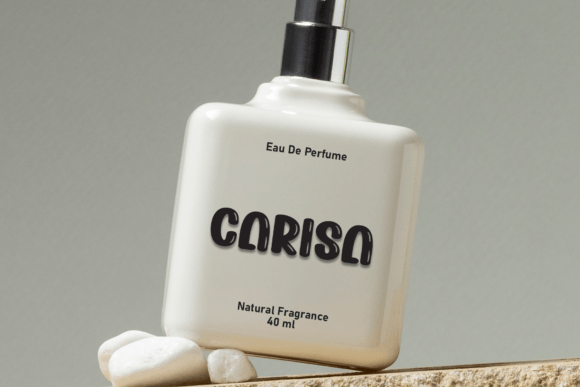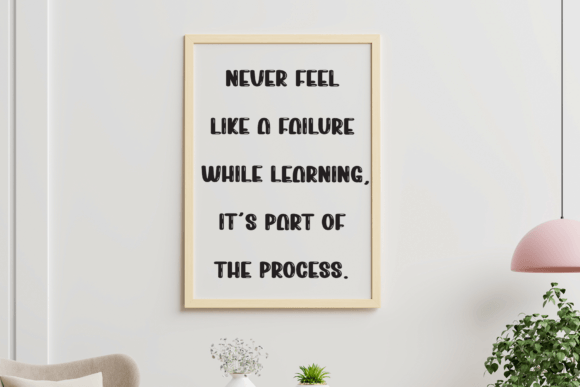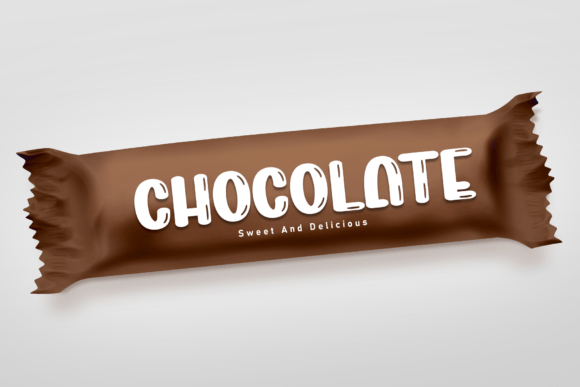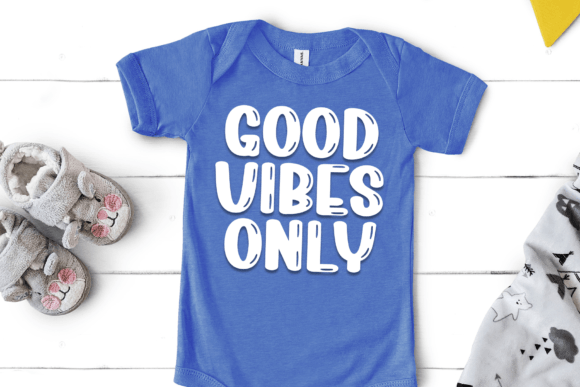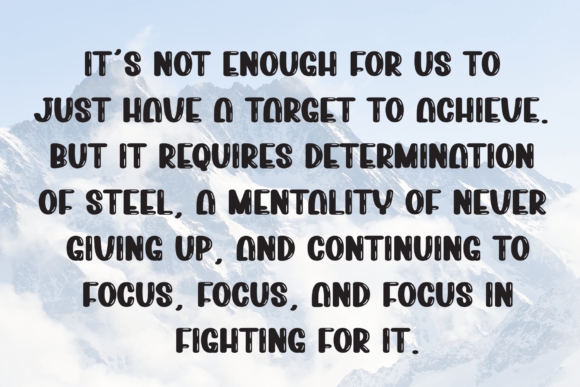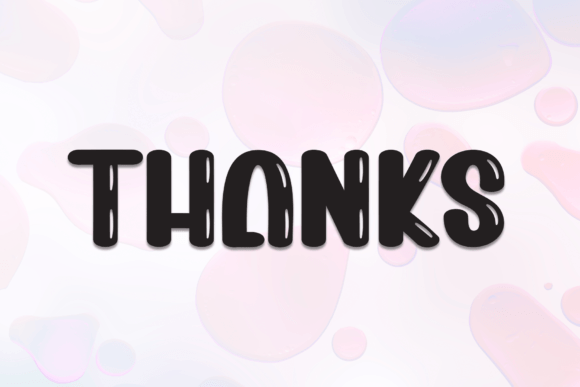
Introduction to Bubble Pastel Font
Have you ever been in the middle of a creative project, staring at a blank canvas or screen, and suddenly, a burst of inspiration hits you? The words start flowing, and the design begins to take shape. For many of us, it’s moments like these that make the hard work worth it.
But what if you had the perfect tool to help unlock that creativity? Enter the Bubble Pastel Font, a sweet and friendly handwritten font that’s as versatile as it is charming. Its natural and unique style makes it an ideal design resource for a wide range of projects, from children’s books to social media graphics.
Whether you’re a seasoned designer or just starting out, the Bubble Pastel Font is a valuable addition to your toolkit. With its high-quality design and transparent background, it’s perfect for adding a touch of whimsy to your creative projects. And the best part? It’s available for a free download, making it accessible to designers of all levels.
Key Features of Bubble Pastel Font
- Transparent background for seamless integration into any design
- Unique, pastel-inspired aesthetic adds a touch of whimsy to any design
- Perfect for use in digital and print designs, including social media graphics, posters, and more
Honest Review: Bubble Pastel Font
I recently had the chance to work with the Bubble Pastel Font and I must say it’s been a pleasant experience. As a designer, I’m always on the lookout for high-quality design resources that can elevate my creative projects. The Bubble Pastel Font is a great addition to my toolkit, and I appreciate that it’s available for free download.
What works well with the Bubble Pastel Font is its versatility. It can be used for a variety of projects, from children’s books to wedding invitations, and its transparent background makes it easy to layer over other design elements. I also appreciate the font’s whimsical feel, which adds a touch of personality to any design.
- ✨ Transparent background for easy layering
- ✨ Versatile font that works well for various projects
While the Bubble Pastel Font is a great resource, I do have a few limitations to note. ⚠️ The font may not be suitable for all projects, especially those that require a more serious or formal tone. Additionally, the font’s transparent background can sometimes make it difficult to read on certain backgrounds.
Overall, I’m impressed with the Bubble Pastel Font and would recommend it to designers who are looking for a fun and versatile font to add to their collection. With its high-quality design and free download, it’s a great resource to have in your toolkit.
The Bubble Pastel Font is perfect for creative projects, such as invitations, social media graphics, and blog posts. Its high-quality design and transparent background make it a great resource for designers and non-designers alike.